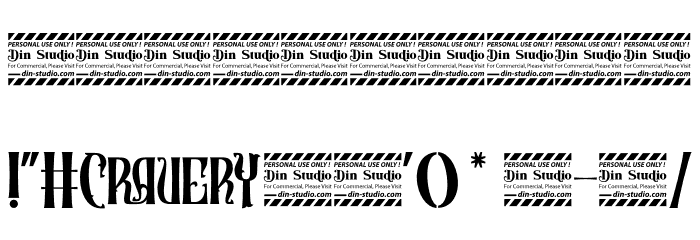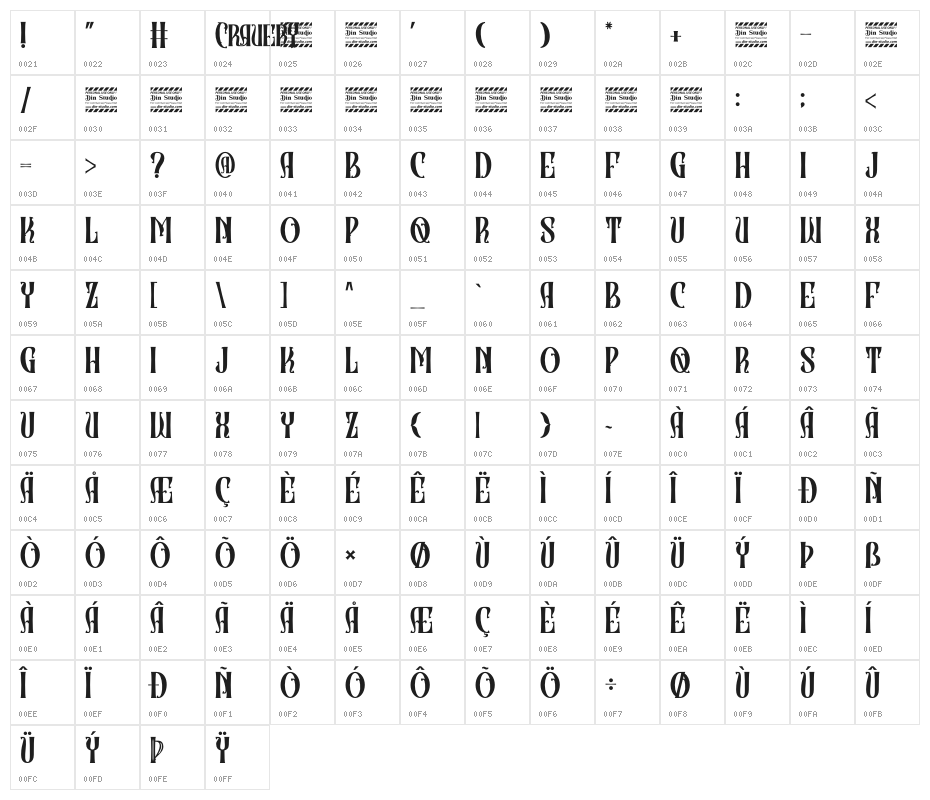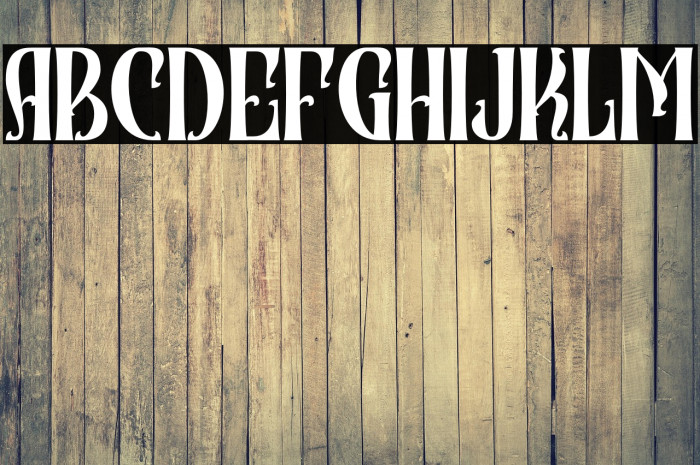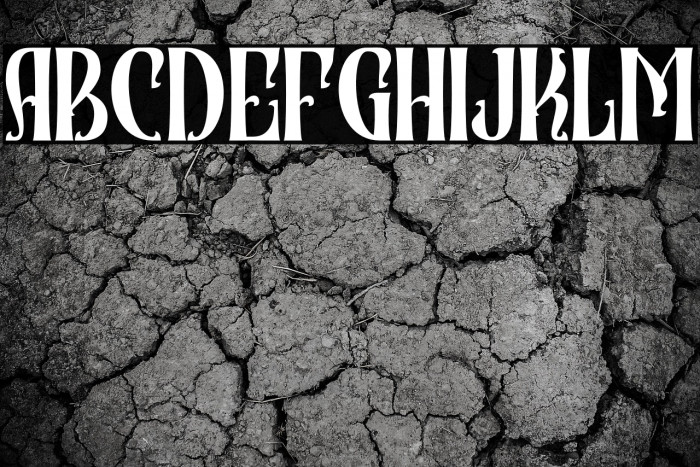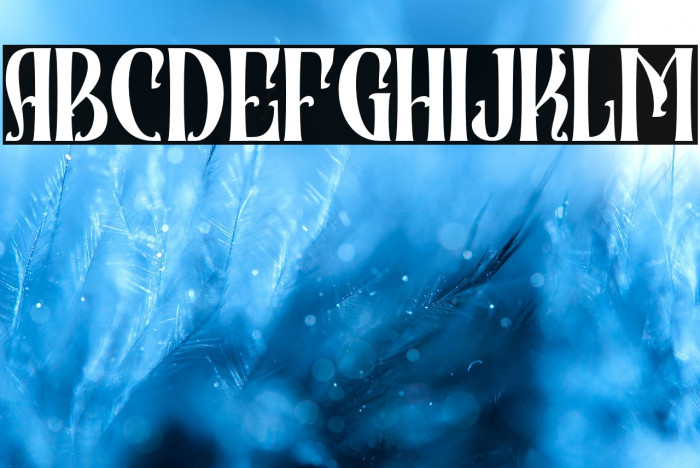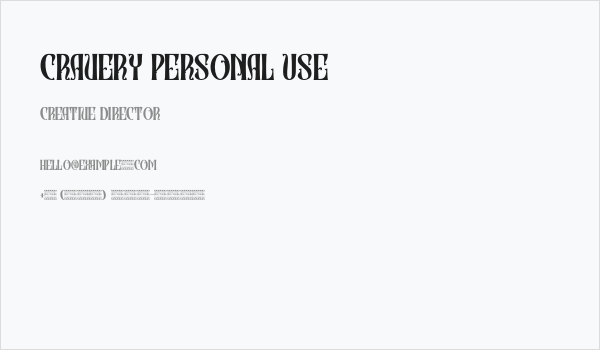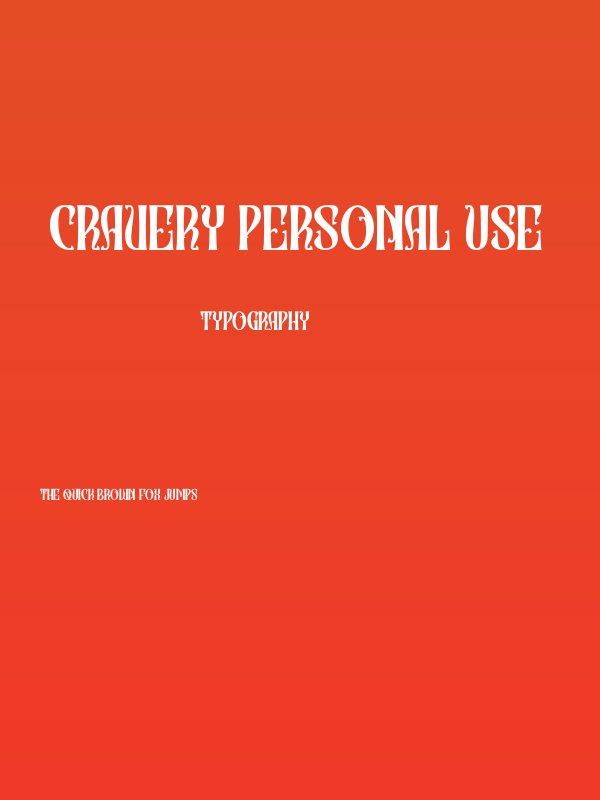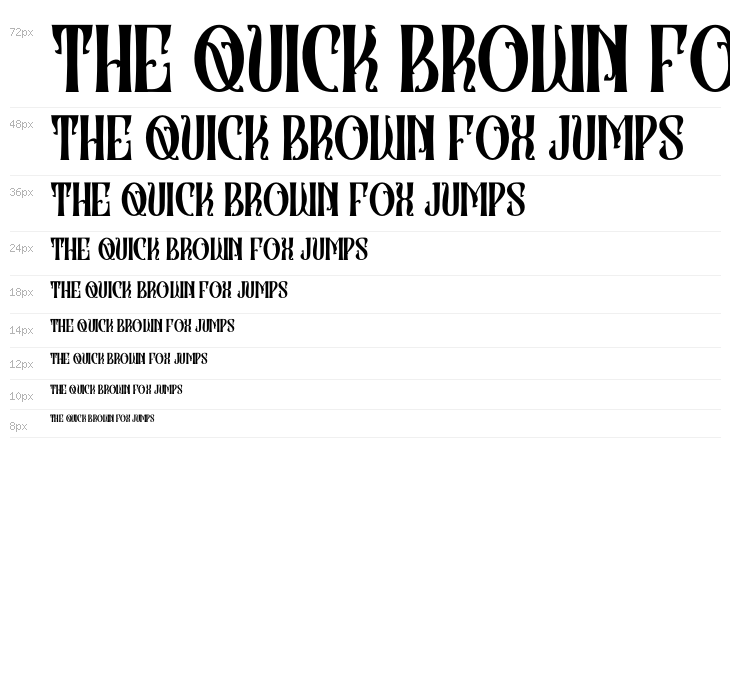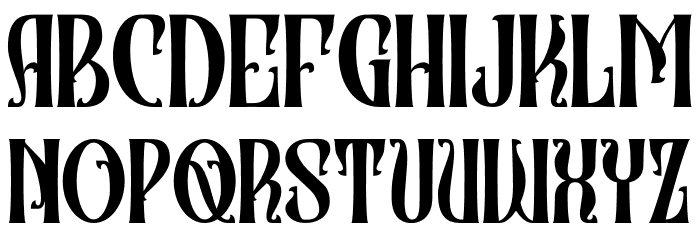
Cravery Personal Use Font
Cravery Personal Use Description
This font features a bold and decorative style with high contrast between thick and thin strokes. The uppercase letters are characterized by unique, ornate serifs and flourishes that give it a distinct, artistic appearance. The lowercase letters maintain the same decorative elements, ensuring consistency throughout the typeface. The numbers and special characters are designed to match the elaborate style of the letters, making them suitable for creative and eye-catching designs. The overall aesthetic is both vintage and modern, combining traditional serif elements with a contemporary twist.